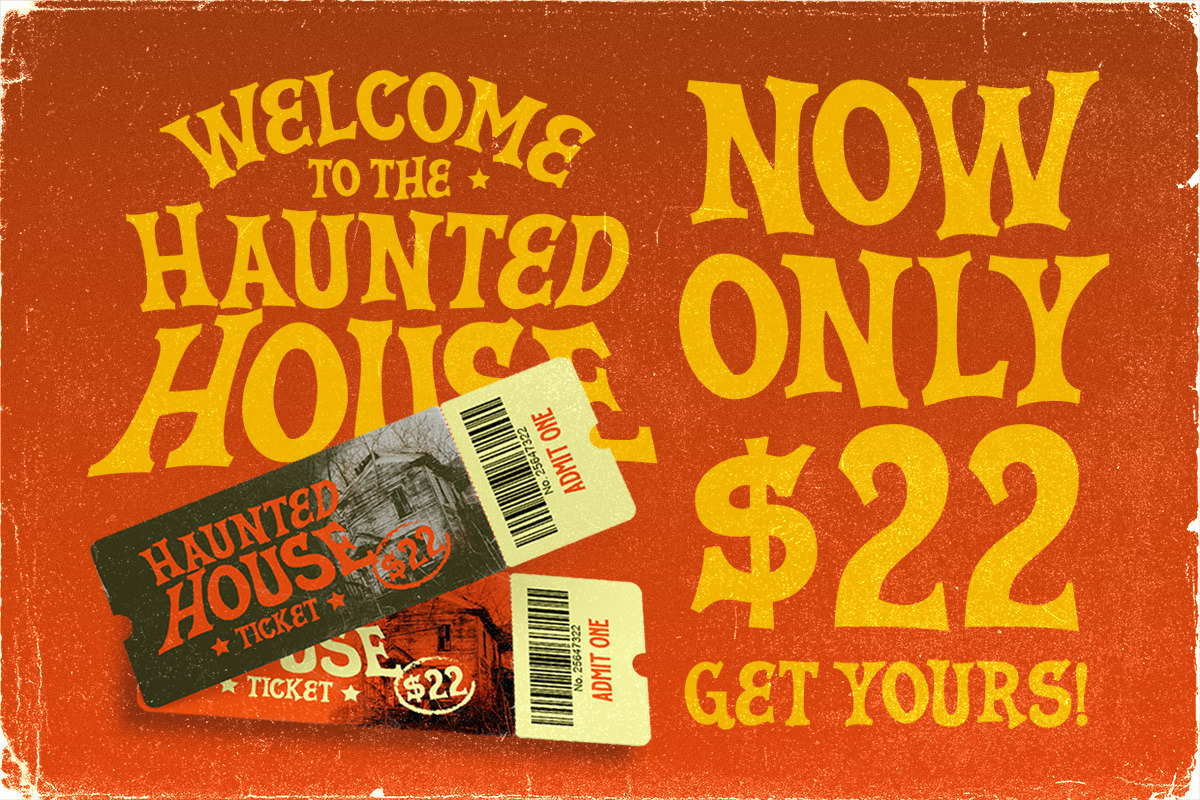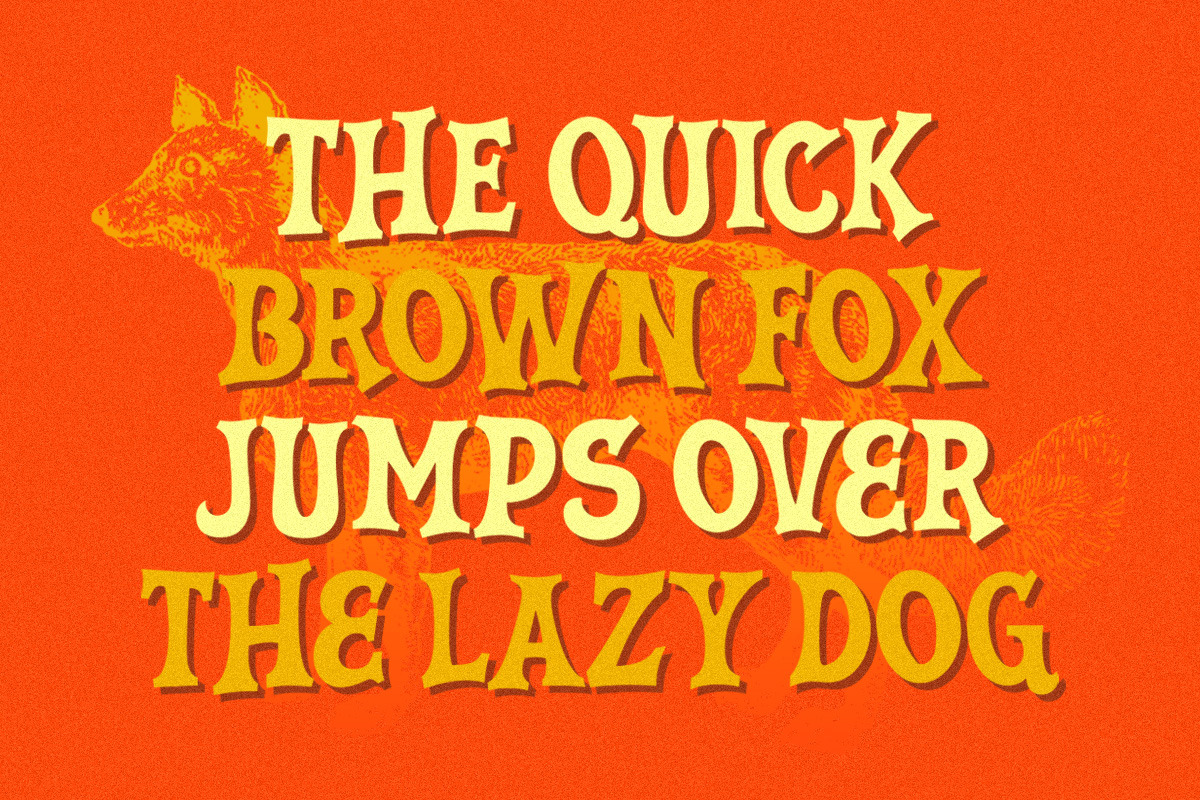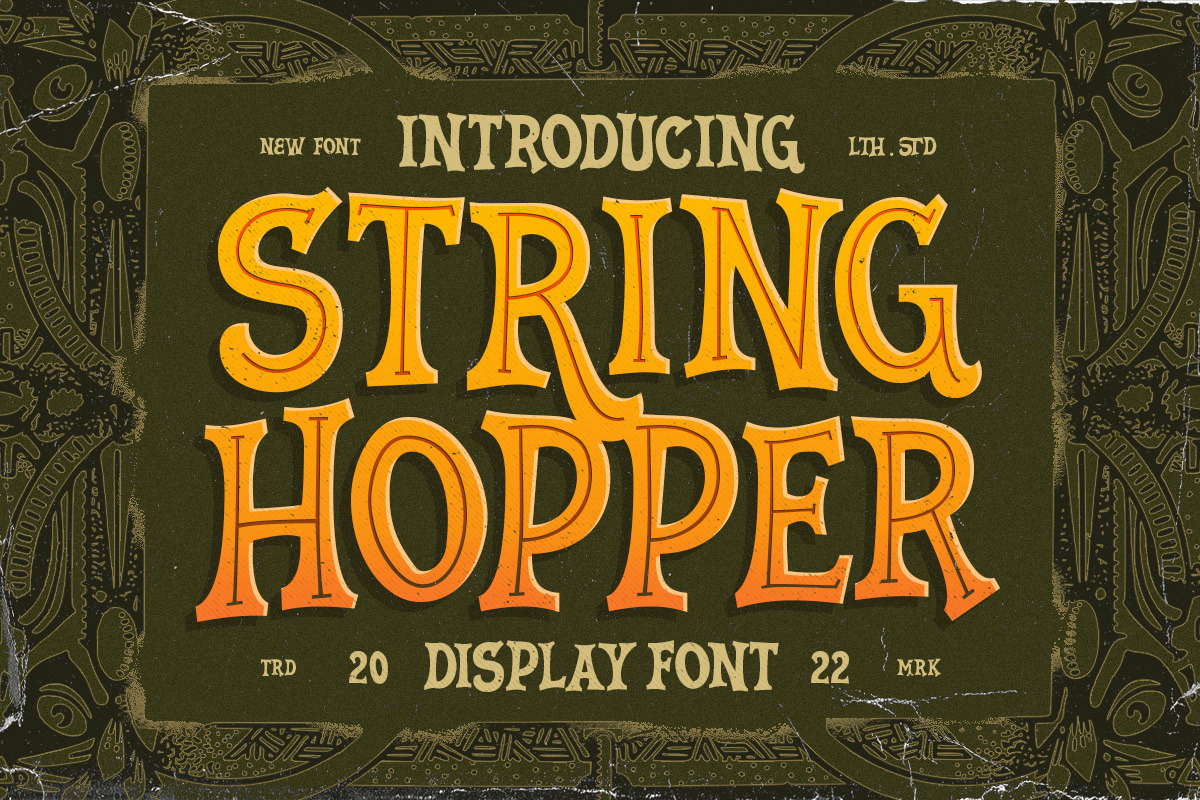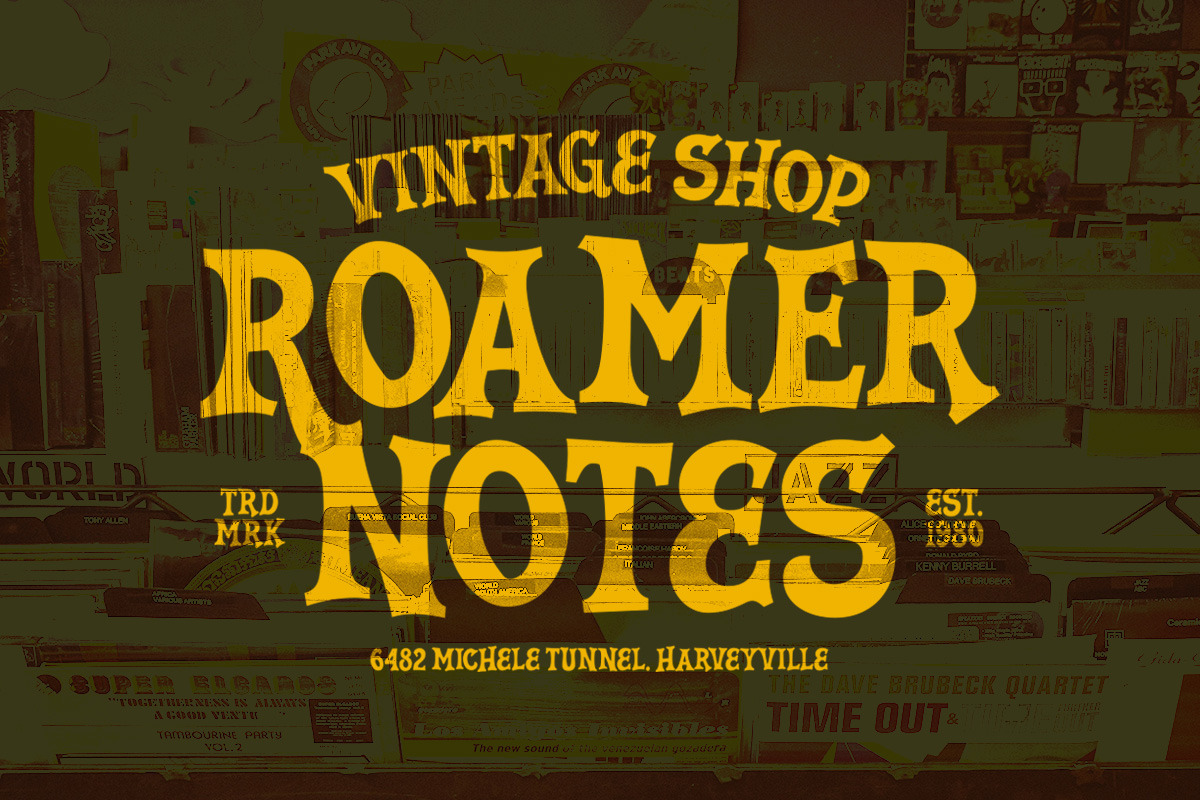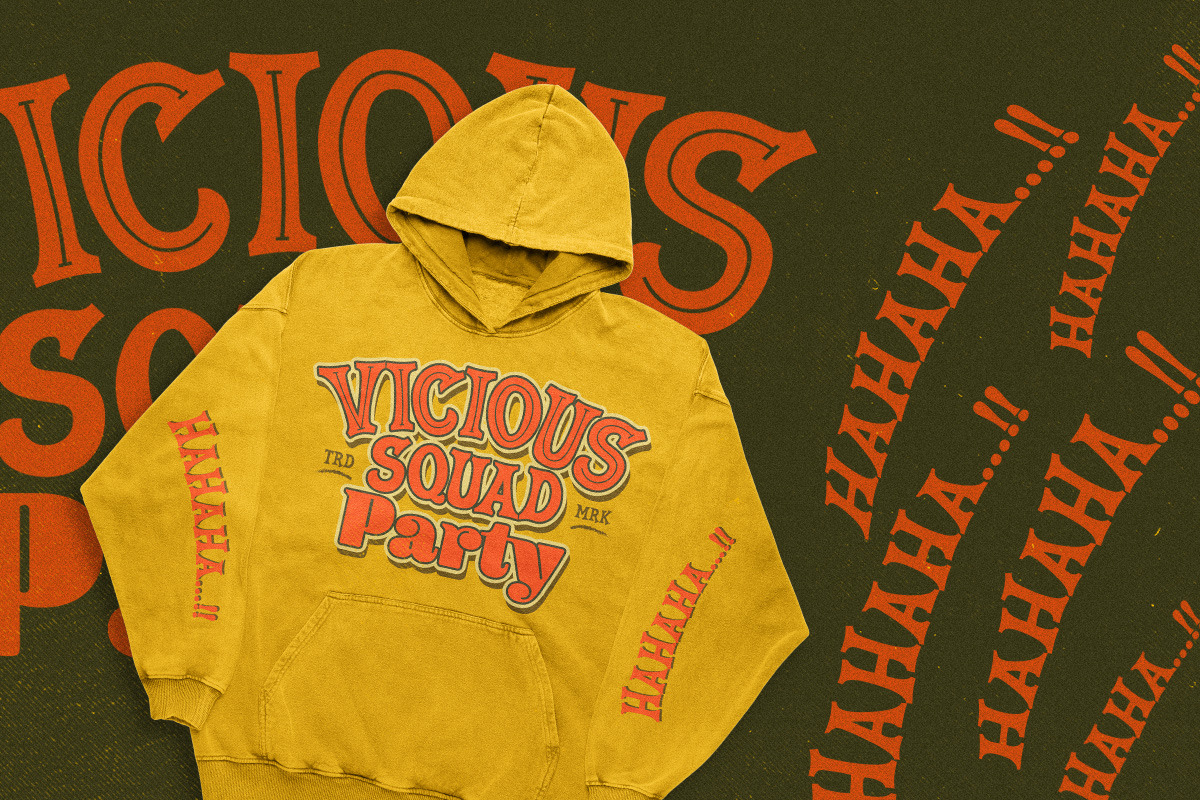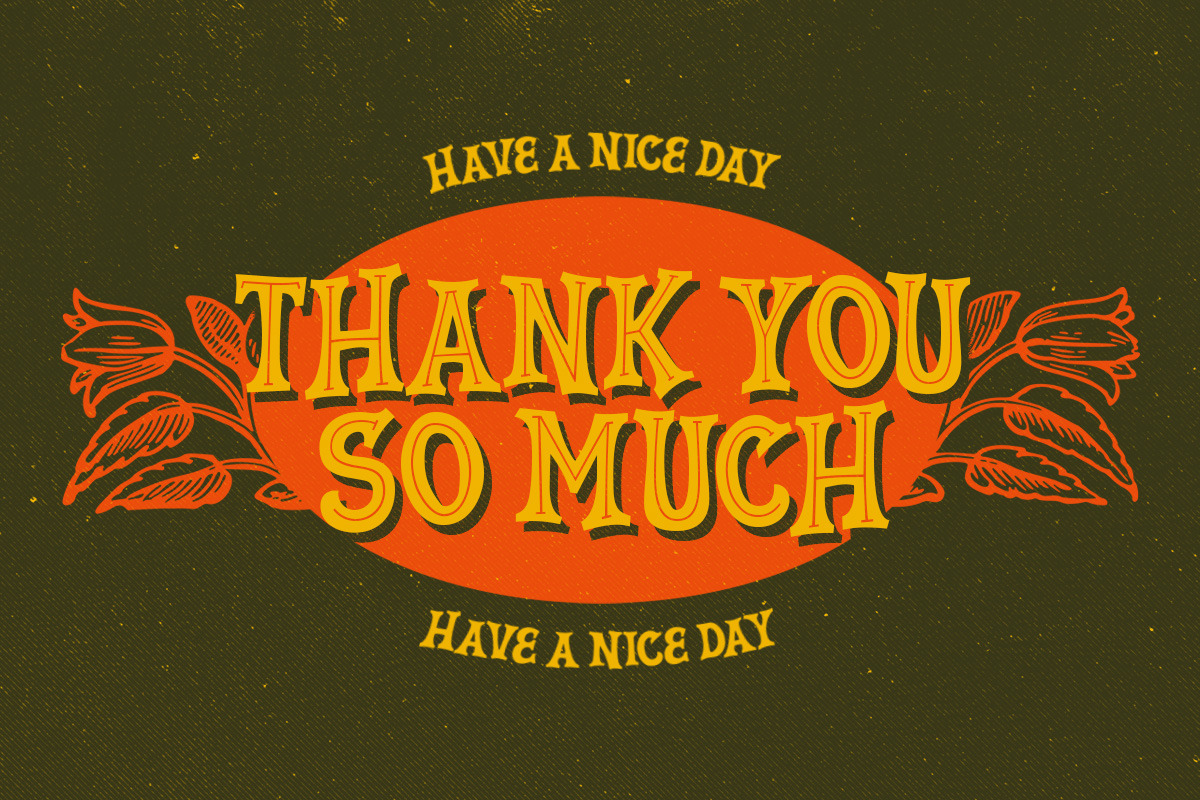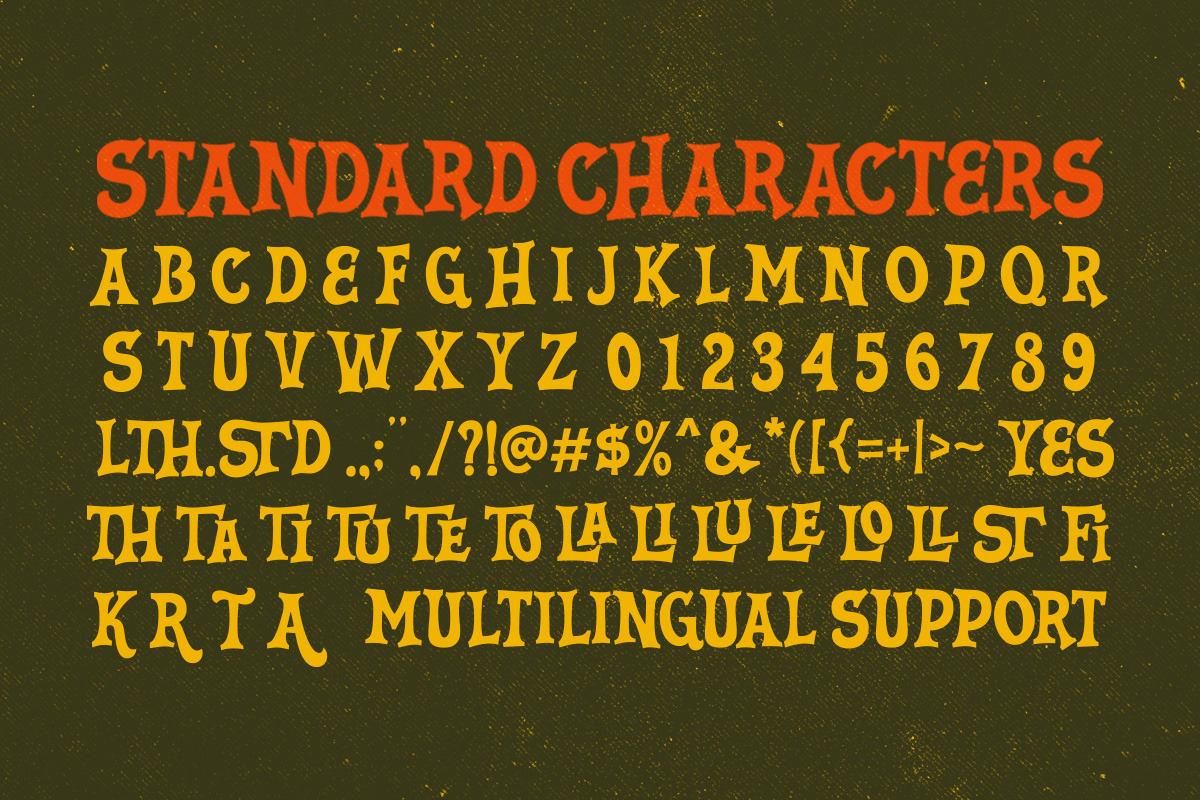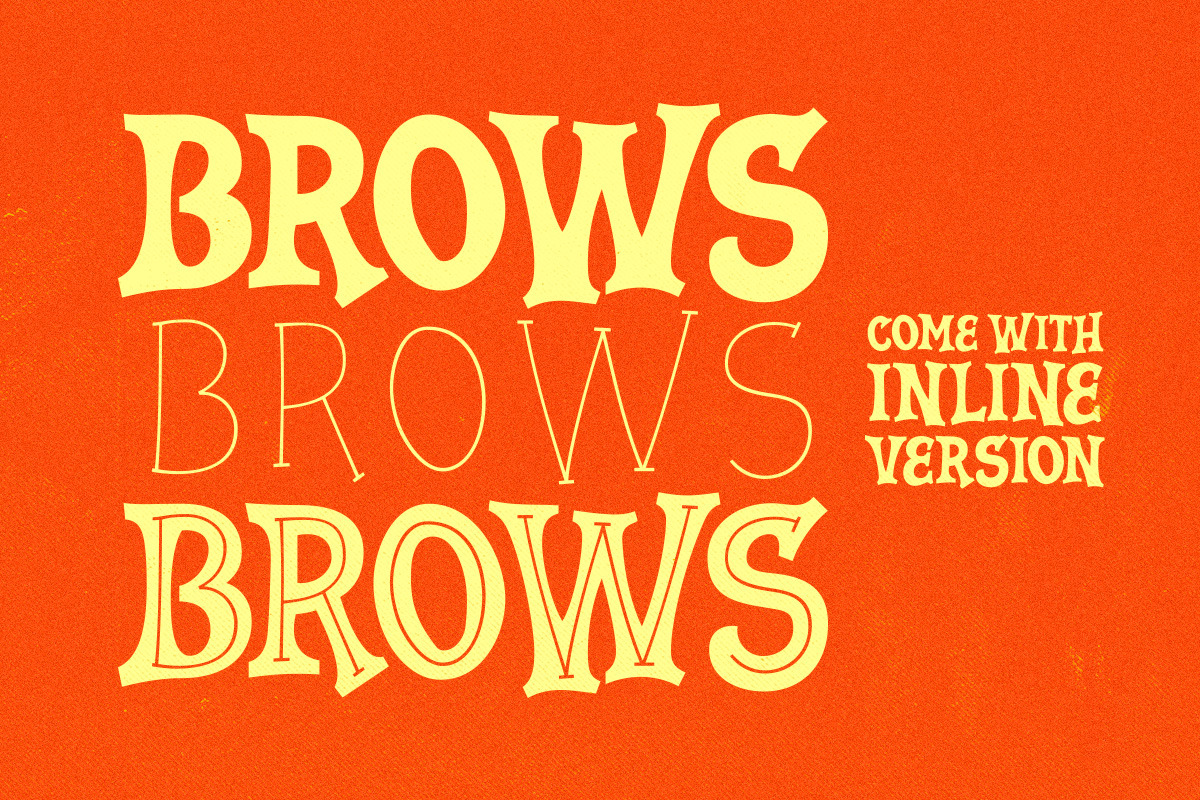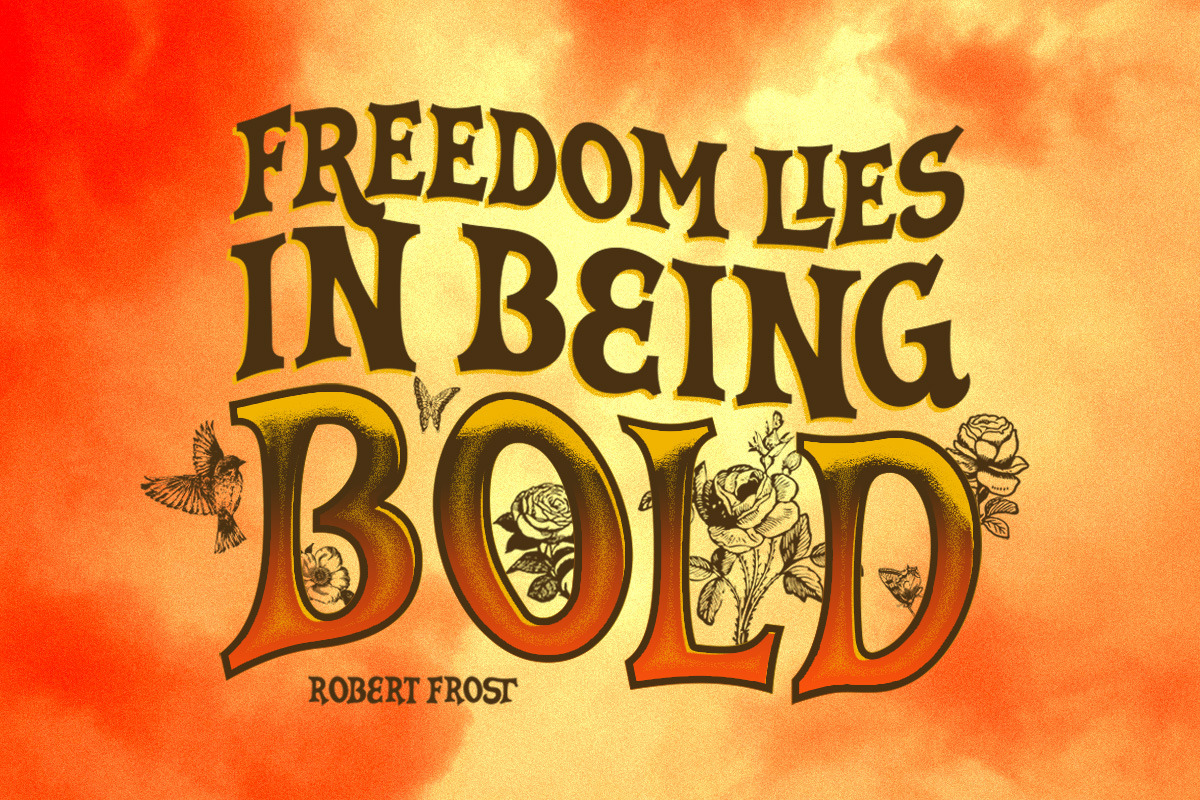
String Hopper - Display Font
String Hopper is a unique serif typeface font with bold and vintage feel. This font has unique shape, very suitable for horror, thriller and spooky yet fun theme design. This font also perfectly made to be applied especially in logo, and the other various formal forms such as invitations, labels, logos, magazines, books, novels, labels or any type of advertising purpose.
- altermate and ligatures